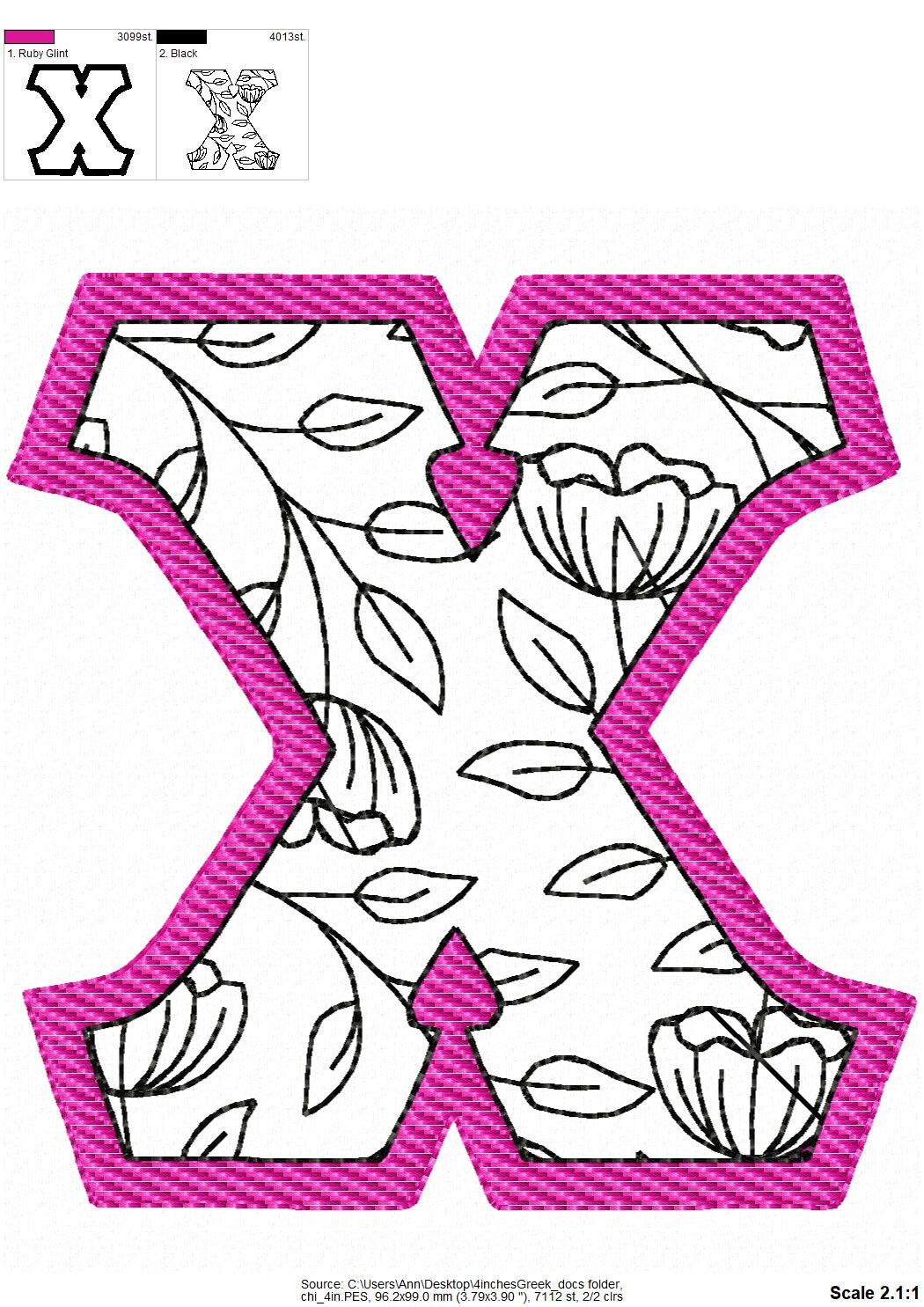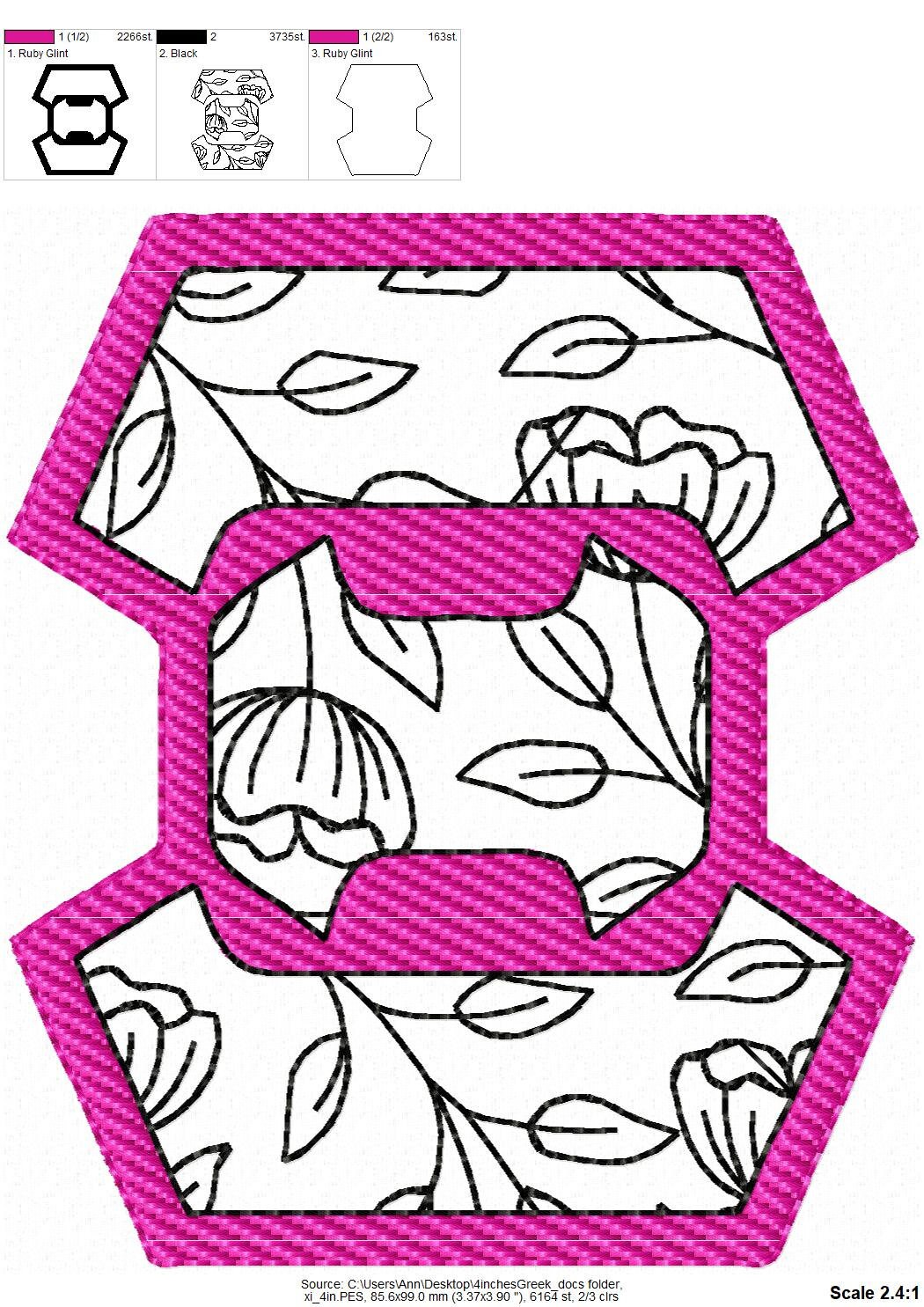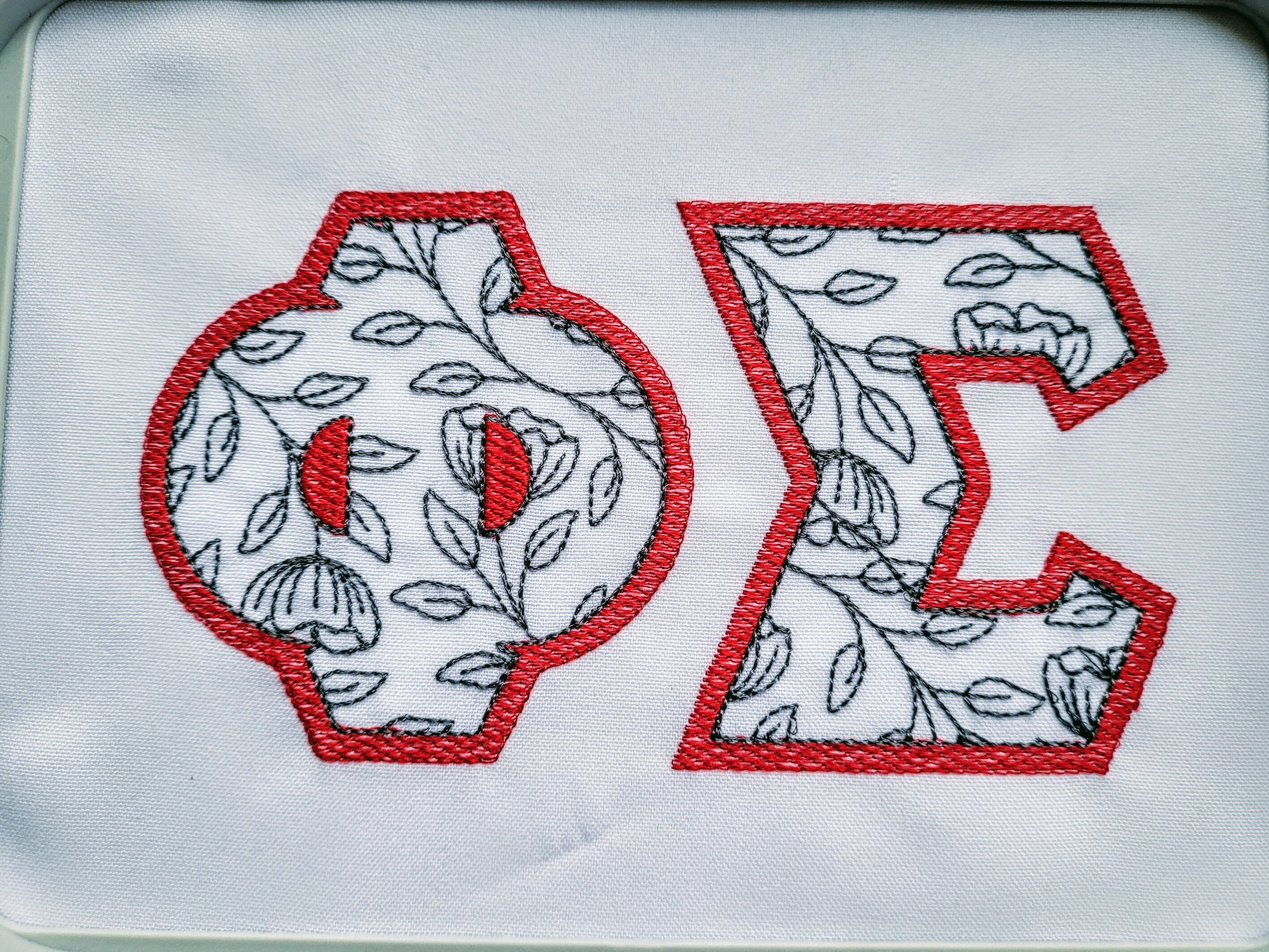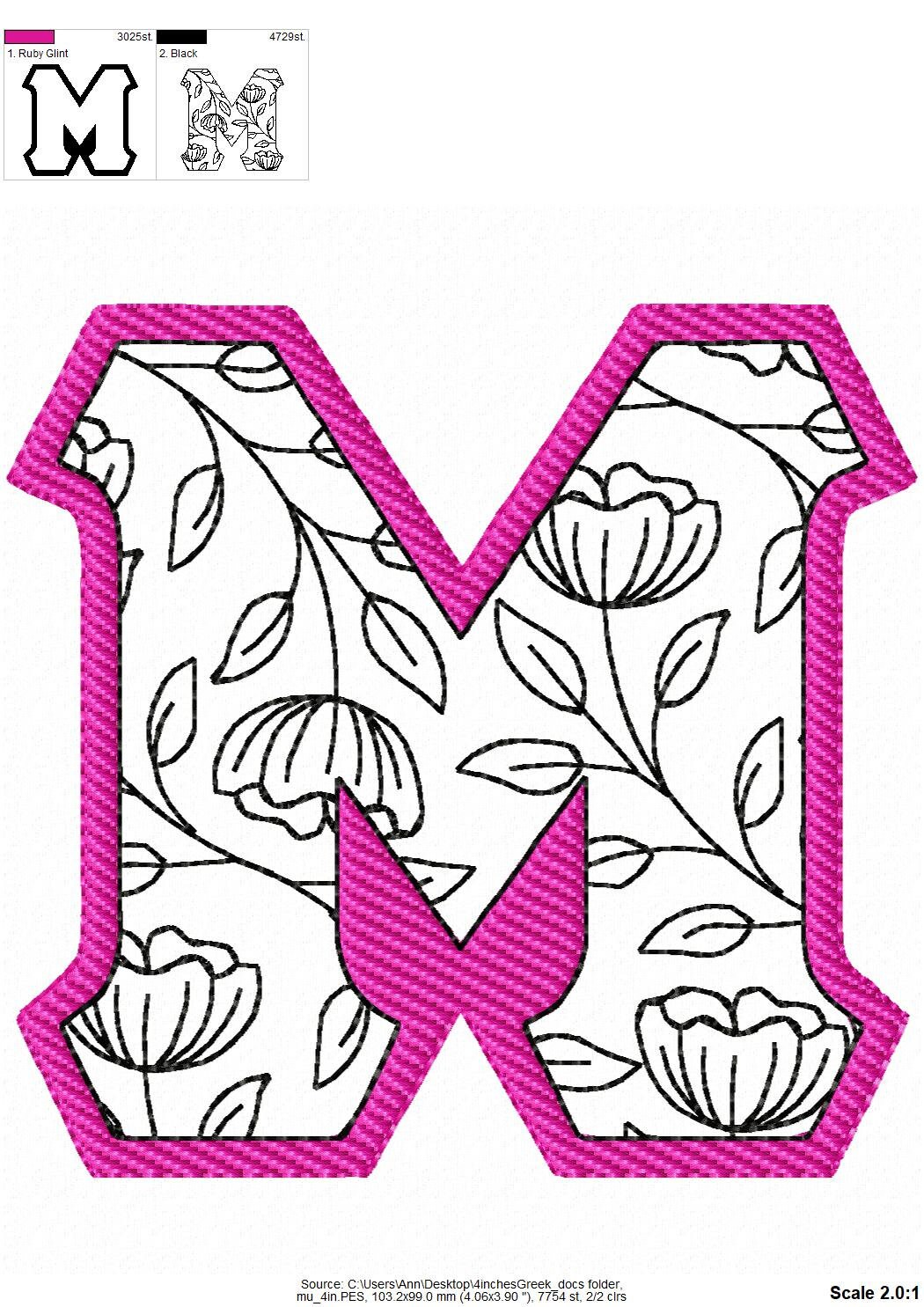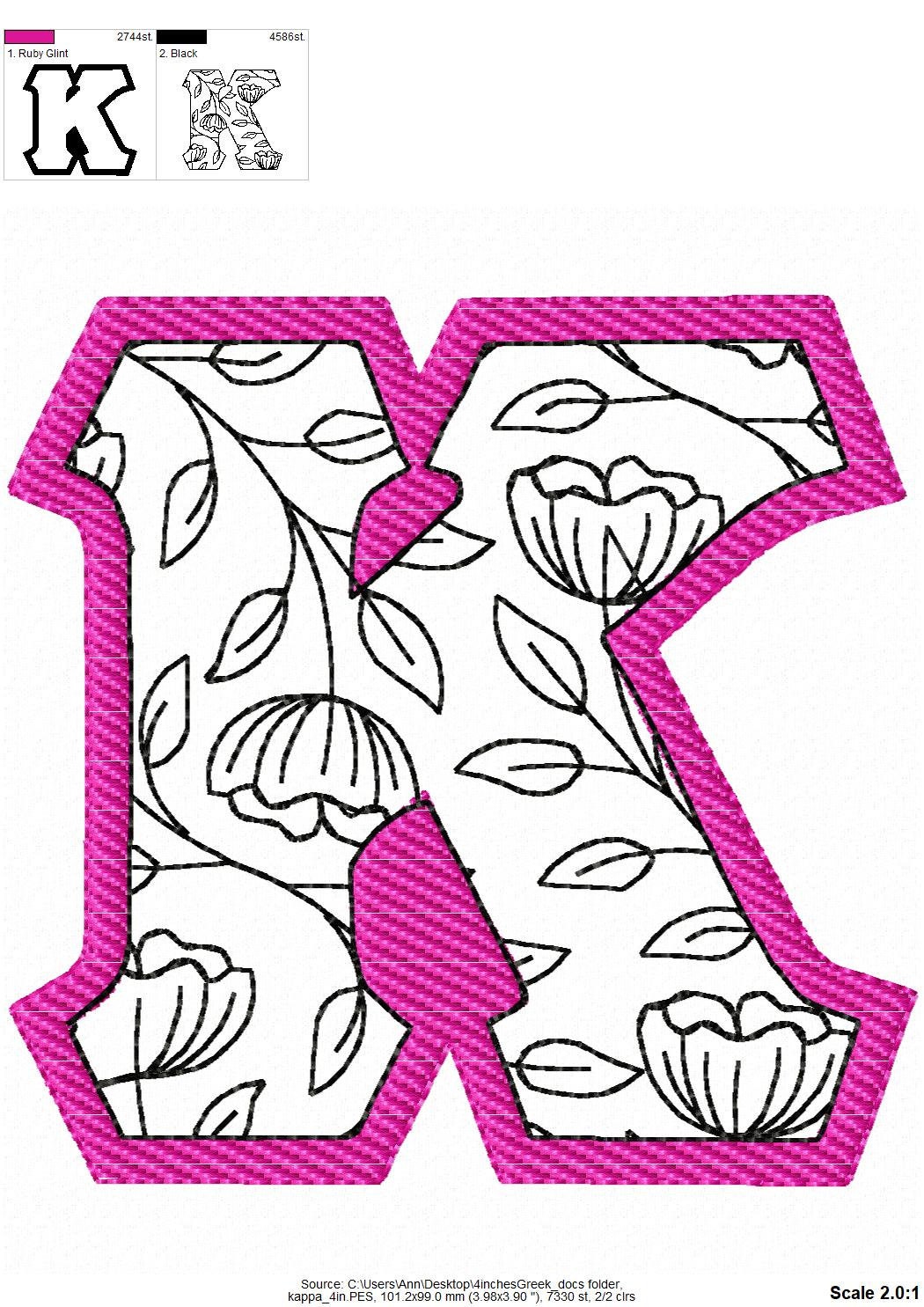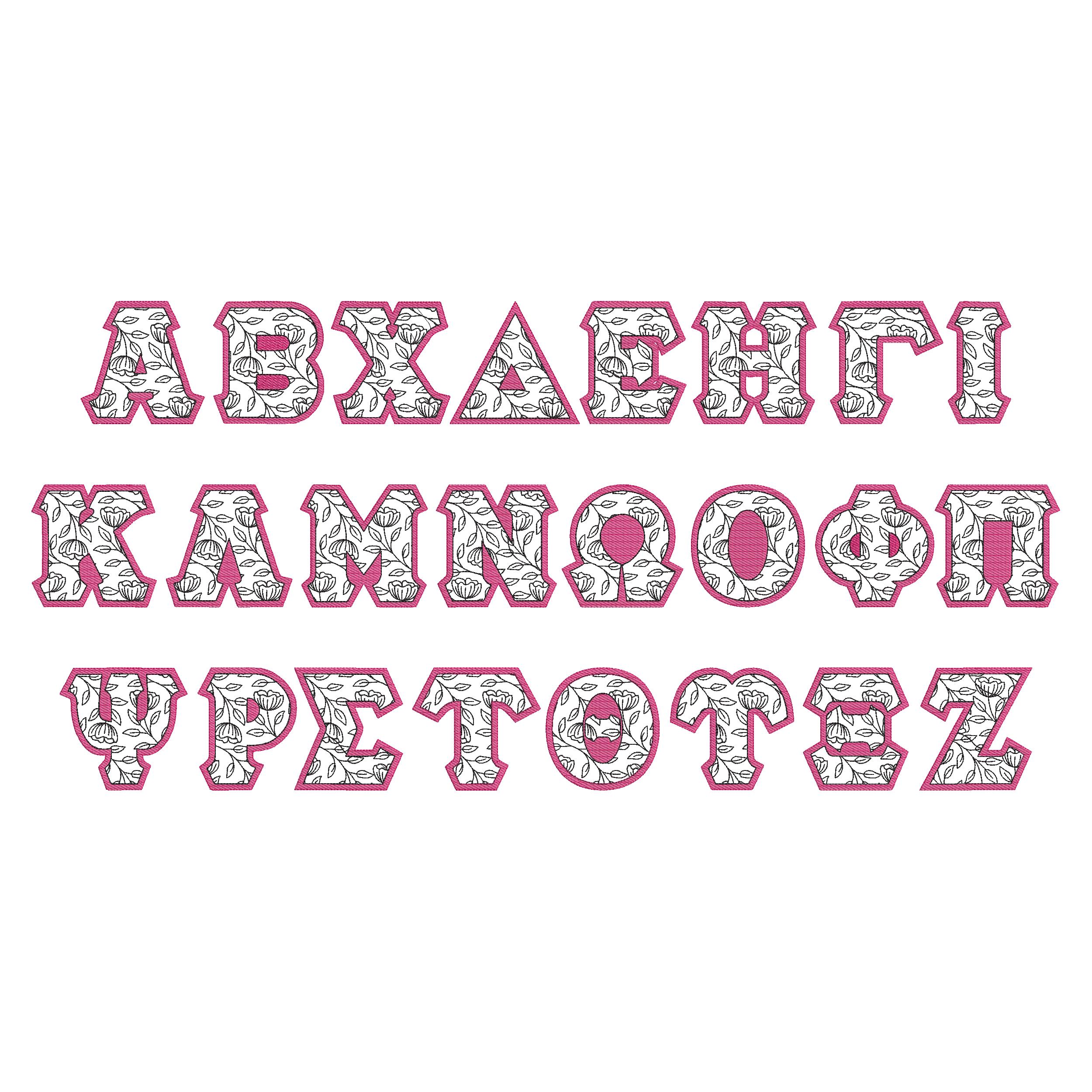
Floral GREEK FONT light stitch 2 colors Greek alphabet letters ABC theta alpha omega kappa flowered monogram machine embroidery designs
This listing is for the whole Greek font/alphabet